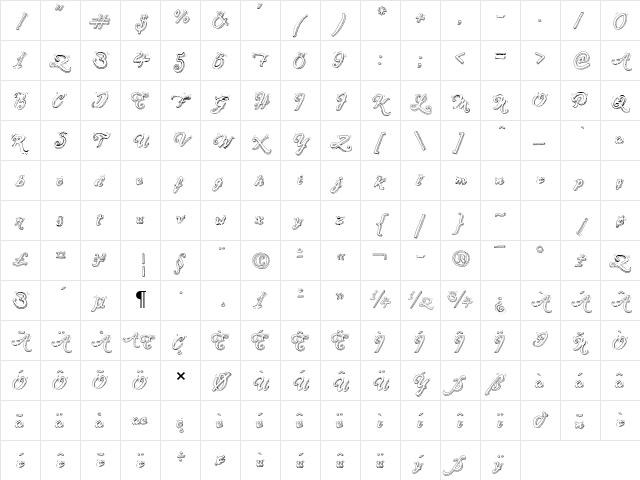
Sketch Handwriting Regular
Design Context for Sketch Handwriting Typeface
Sketch Handwriting flows with the natural rhythm of handwritten lettering, making it ideal for designs that call for warmth and personal expression.
Font Pairing: Combine Sketch Handwriting with a simple geometric sans for maximum contrast — the tension between flowing curves and clean structure is a classic typographic pairing.
Pro Tip: Use Sketch Handwriting for short runs of text — names, titles, or taglines. Extended body copy in script faces tires the eye quickly.